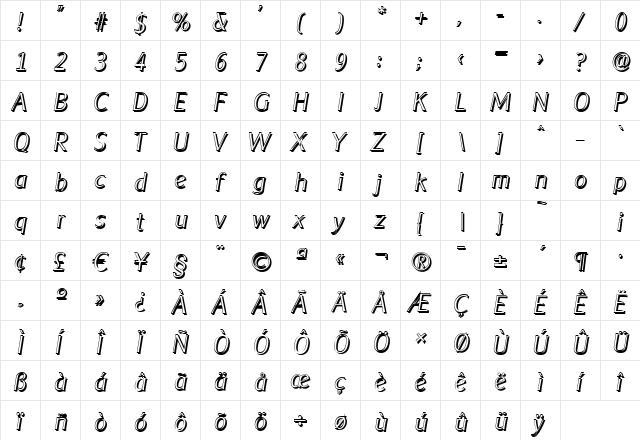
AlexanderBeckerShadow-Xlight Italic Font Preview
Design Context for AlexanderBeckerShadow-Xlight Typeface
AlexanderBeckerShadow-Xlight brings ornamental detail and strong personality to headlines and identities, where visual impact matters more than quiet functionality. Its italic angle brings a sense of urgency and motion to the letterforms. The delicate stroke weight brings airiness and refinement to layouts.
Font Pairing: Pair with a clean neutral sans-serif for body copy to let AlexanderBeckerShadow-Xlight's character lead without overwhelming the composition.
Pro Tip: Use AlexanderBeckerShadow-Xlight exclusively at display sizes — it was designed to be seen, not read at length. Let a neutral companion handle body copy.